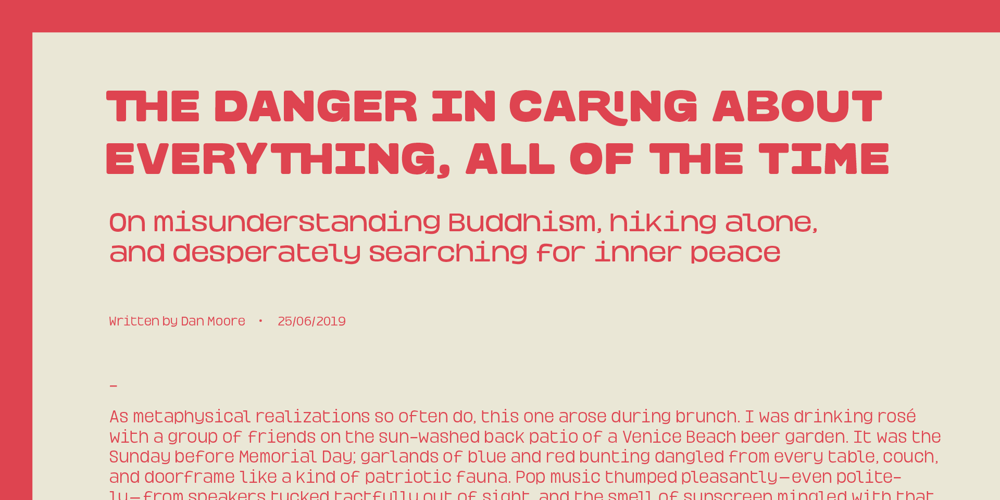
Hatchway
Hatchway font
Hatchway Font Family was designed by Rômulo Gobira and published by Rômulo Gobira. Hatchway contains 35 styles and family package options. Hatchway is a monospaced display typeface with rounded corners, suitable for headlines and short passages of text. Hatchway has a tall x-height and unusually short ascenders and descenders. The family contains seven weights from Thin to Black and five widths from Ultra Condensed to Ultra Extended. This version (1.0) comes with Multiple Language Support, including Extended Cyrillic, and Opentype Features.